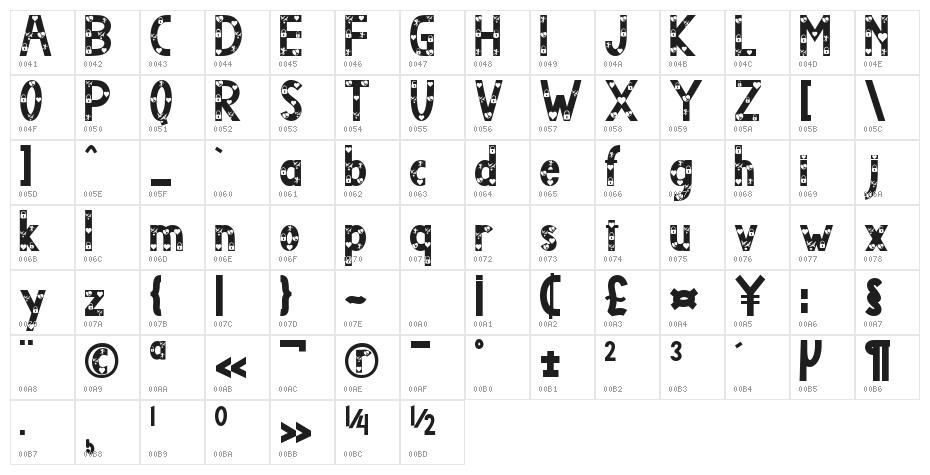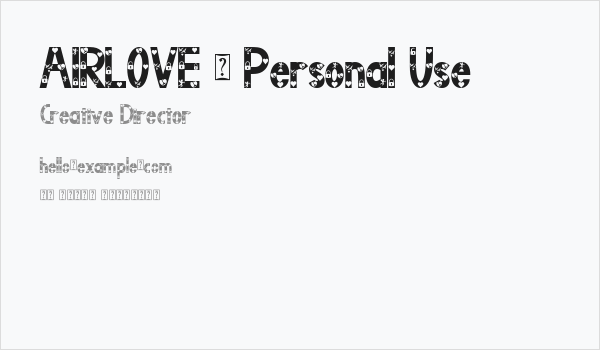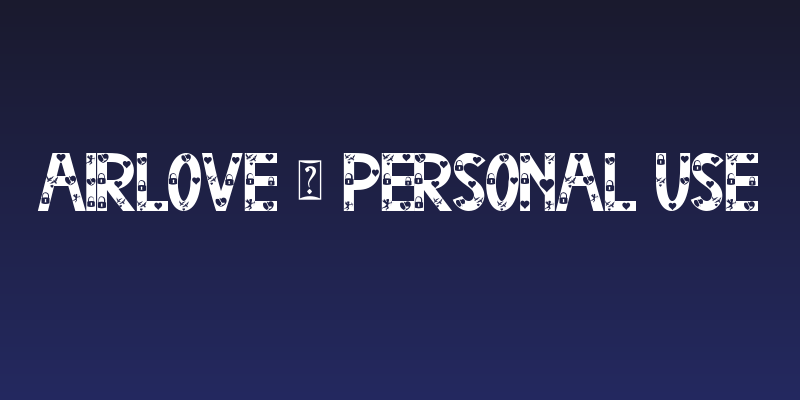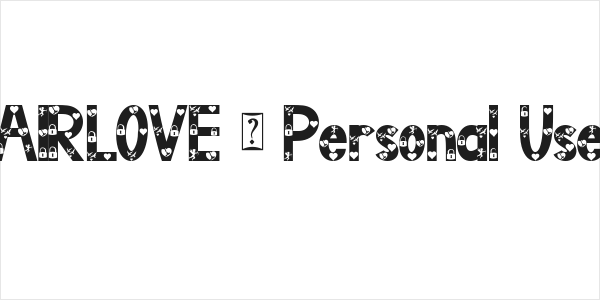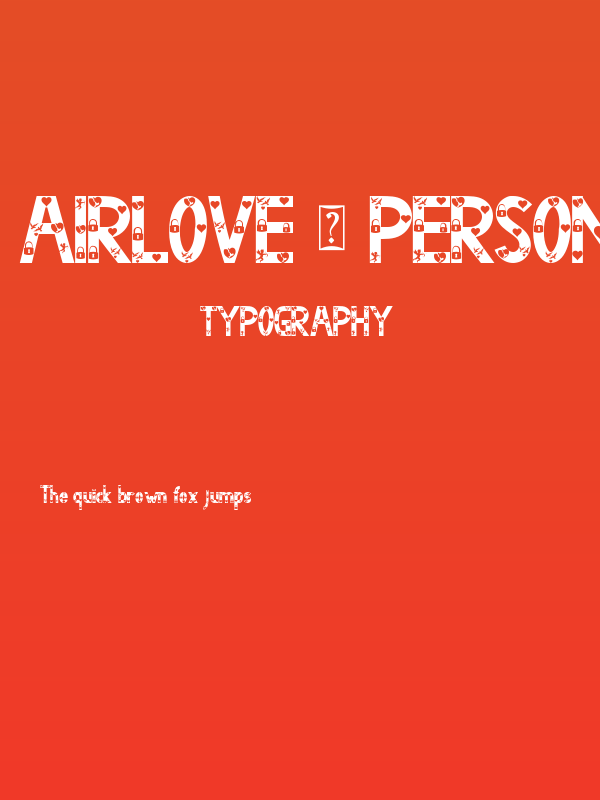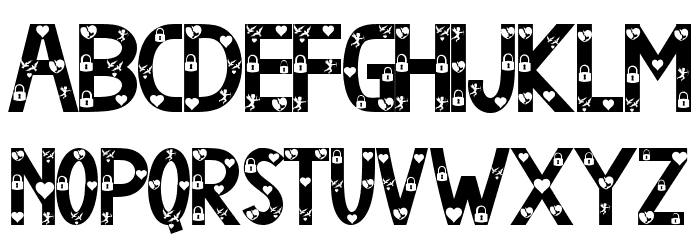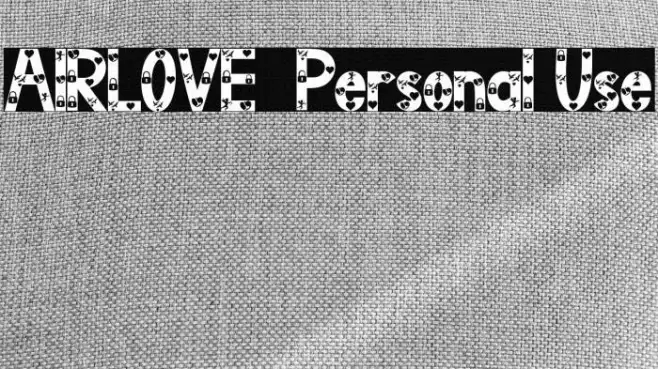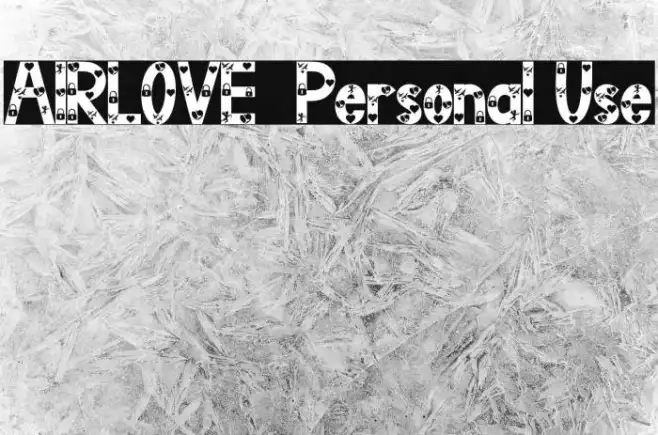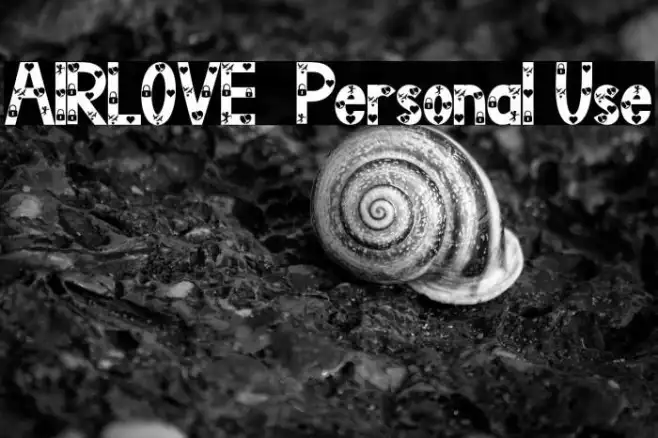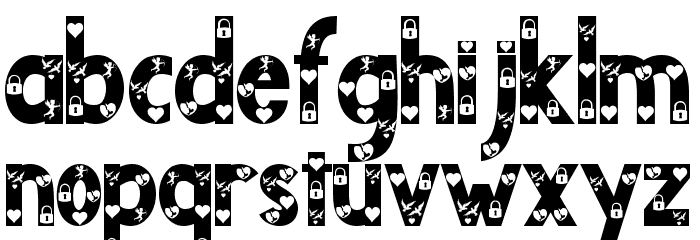
AIRLOVE - Personal Use Font
AIRLOVE - Personal Use Description
This decorative font features a playful and whimsical design with intricate patterns embedded within each character. The letters are adorned with heart shapes, locks, and floral motifs, creating a unique and eye-catching appearance. The bold and chunky letterforms ensure high visibility, making it suitable for attention-grabbing designs. The font maintains a consistent style across uppercase, lowercase, and numerical characters, with special characters also following the same decorative theme. Its distinct style makes it ideal for projects that require a fun and lively aesthetic.
| Proposed Projects | Perfect for greeting cards, children's book covers, playful branding, and event invitations. |